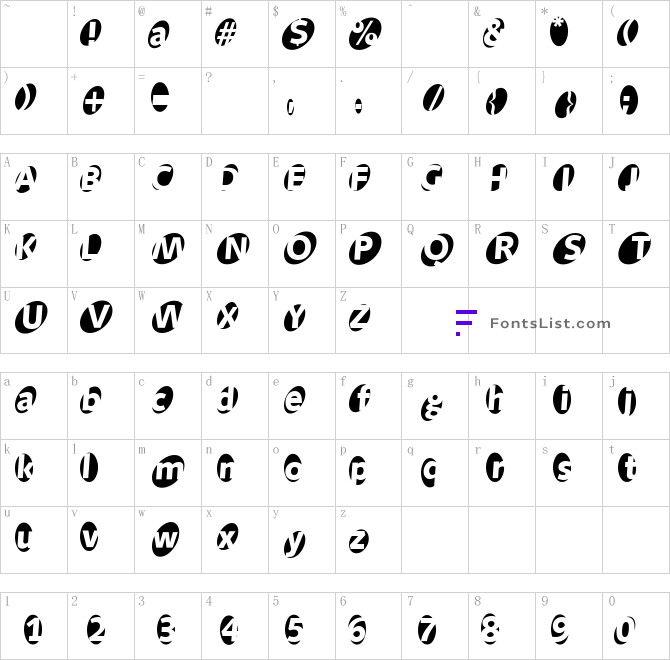
- Font Name:Aida
AidaOops.ttf is a very beautiful artistic font, AidaOops.ttf is widely used in the design and printing of various books and pictures,AidaOops.ttf has a strong visual impact,AidaOops.ttf is a commonly used font in newspapers, magazines and books, and is used in posters, e-commerce Poster design, store design, logo design, font design and other fields.AidaOops.